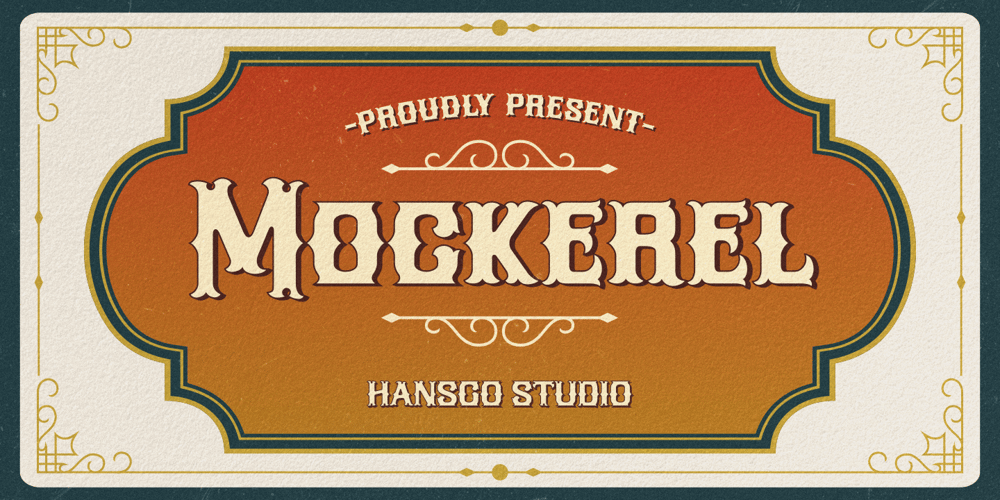
Mockerel Vintage Font Family was designed by Burhan Afif and published by HansCo. Mockerel Vintage contains 1 styles and family package options. Mockerel Vintage font is a vintage decorative typeface which is inspired by lettering sign and art. While this font has a victorian touch, it still looks bold and solid. Very suitable for for packaging, headline, logotype, apparel, branding, advertising etc.How to access alternate / ornament ? : https://hanscostudio.com/tutorial/*Enjoy!